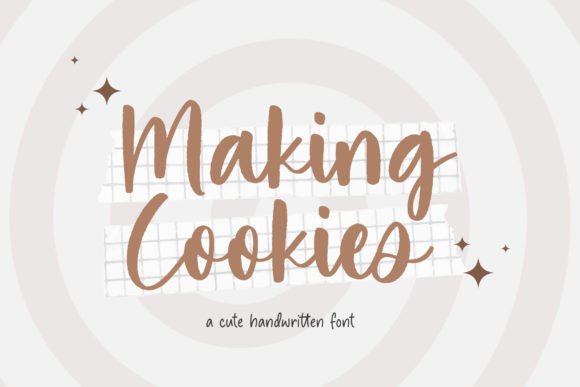
Welcome to the world of Making Cookies, a captivating script font that will tantalize your creative senses and unleash a burst of originality into your designs. Picture this: a font so alluring, so spellbinding, that it dances across your screen like a delicate ballerina, leaving a trail of visual enchantment in its wake.
Making Cookies is not just a font; it's an experience, an adventure that takes you on a journey through the realm of creative expression. With its mesmerizing curves and enchanting strokes, this font will transform your designs into captivating masterpieces.
Step into the realm of captivating design, where Making Cookies reigns supreme. Let your imagination soar as you craft stunning social media posts, captivating invitations, heartwarming cards, and unique watermarks. The possibilities are endless, bounded only by the limits of your imagination.
Making Cookies is more than just a font; it's a conduit for your creativity, a gateway to a world where your designs come alive with unparalleled grace and charm. Indulge in the sensory symphony of Making Cookies, allowing its enchanting melodies to harmonize with your creative vision, resulting in a masterpiece that captivates and inspires.
Making Cookies is more than just a font; it's an investment in your creative future. A font that will elevate your designs, captivate your audience, and leave an unforgettable impression. Don't settle for ordinary fonts; embrace the extraordinary and unlock a world of design possibilities with Making Cookies.